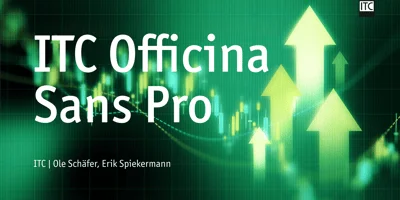
ITC Officina Sans Font
ITC Officina Sans Font is perfect for professional office communications, corporate documentation, business correspondence, industrial design materials, technical specification sheets, systematic workflow diagrams, efficient data presentations, structured business reports, organized administrative systems, and streamlined corporate identities.
What makes ITC Officina Sans Font exciting is its professional efficiency and systematic clarity that embodies the essence of organized business with functional precision and workplace sophistication. This distinguished typeface captures the spirit of professional environments with its clean character forms and office-inspired proportions that evoke well-organized filing systems, efficient workflow processes, and the kind of systematic thinking that transforms complex business operations into streamlined success. The font's professional character creates an immediate impression of competence and the kind of organized efficiency that defines excellent business communication.
ITC Officina Sans Font family includes regular weight with professionally crafted character designs featuring systematic proportions and business styling. The typeface maintains exceptional readability while showcasing its distinctive efficient personality through precisely designed letterforms that reflect the organized thinking and functional approach that characterizes excellent corporate communication.
Business professionals consistently select ITC Officina Sans Font for projects requiring authentic corporate appeal and professional credibility. This remarkable typeface brings the power of systematic organization to brand communications, combining functional aesthetics with business efficiency to create memorable professional experiences. The systematically designed characters ensure professional positioning across all applications, making it essential for corporations, business services, and any organization seeking to communicate the organizational excellence and systematic efficiency that defines successful professional operations through ITC Officina Sans Font.